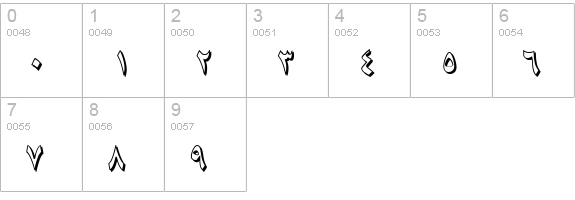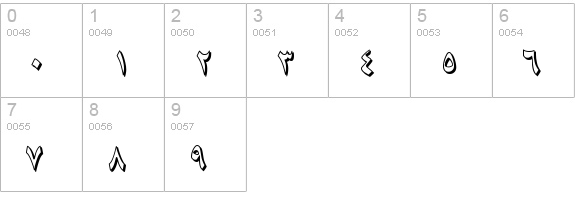
B Shadi Font Details
B Shadi font is a modern and stylish typeface that exudes elegance and sophistication. With its sleek lines and unique design, this font is perfect for adding a touch of class to any project. Whether you're creating invitations, logos, or other graphic designs, B Shadi font is sure to make a statement. The best part? B Shadi font is available for free download at FontsMarket.com. This means you can easily access this stunning font and use it in your projects without any cost. Don't miss out on the opportunity to enhance your designs with the beauty of B Shadi font - download it today and elevate your creations to the next level.